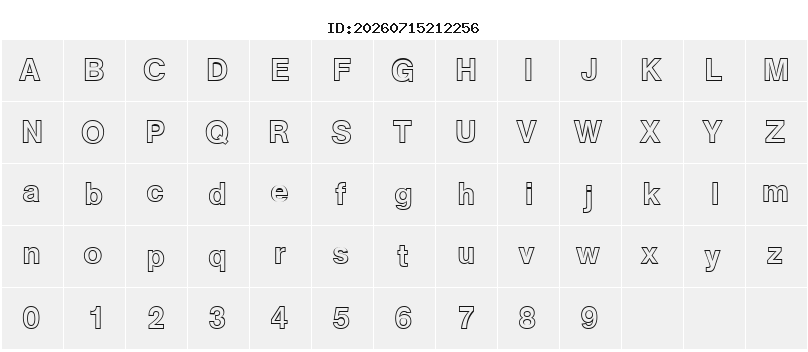
AtkinsOutlineMedium Preview
• Font Name: AtkinsOutlineMedium
• Full Font Name: AtkinsOutlineMedium-Regular
About AtkinsOutlineMedium.ttf
AtkinsOutlineMedium.ttf is a modern, elegant sans-serif font designed for ultimate readability and visual harmony. Perfect for branding, headlines, web design, and print materials.